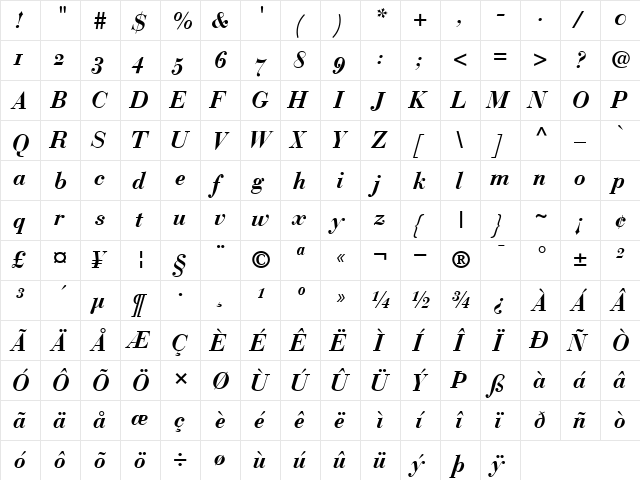
BauerBodoniOldstyleFigures BoldItalic Font Preview
Design Context for BauerBodoniOldstyleFigures Typeface
BauerBodoniOldstyleFigures carries the refined structure of traditional serif typography, with bracketed terminals and considered proportions that communicate credibility and craft. The slanted form adds forward momentum and visual energy. The heavy weight commands attention and anchors typographic hierarchies.
Pro Tip: Set BauerBodoniOldstyleFigures with slightly loose tracking in headlines to let each letterform's detail read clearly at display sizes.